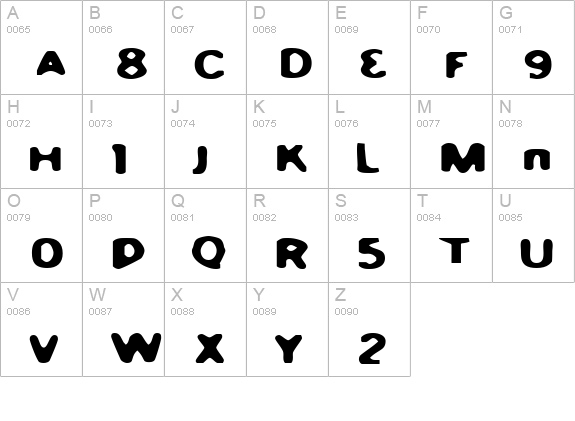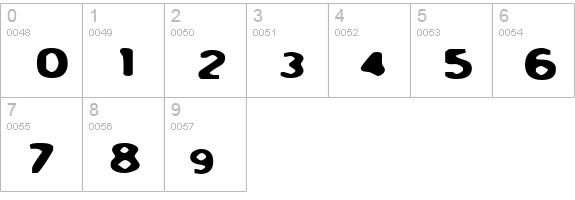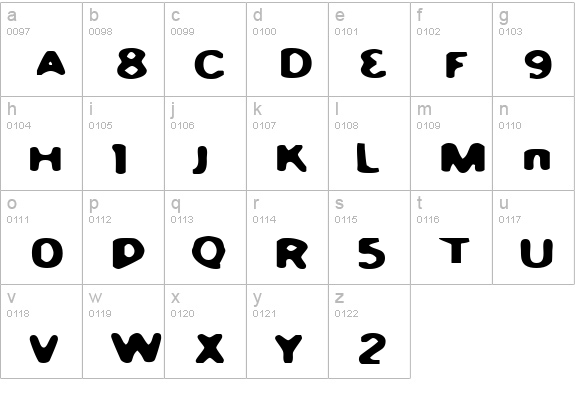
BurnYourPhone Font Details
Introducing BurnYourPhone font, a visually striking typeface that exudes a sense of boldness and modernity. With its sleek lines and edgy letterforms, BurnYourPhone font is perfect for making a statement in your design projects. The font's unique style is sure to capture attention and add a touch of sophistication to any creative endeavor. What sets BurnYourPhone font apart is not just its aesthetic appeal, but also the fact that it is completely free to download. That's right, you can elevate your designs with this stunning font without breaking the bank. Simply head over to FontsMarket.com to access BurnYourPhone font and start incorporating its dynamic energy into your work today. Whether you're creating eye-catching posters, sleek branding materials, or standout social media graphics, BurnYourPhone font is a versatile choice that will help you stand out from the crowd. Embrace the boldness of BurnYourPhone font and take your designs to the next level.